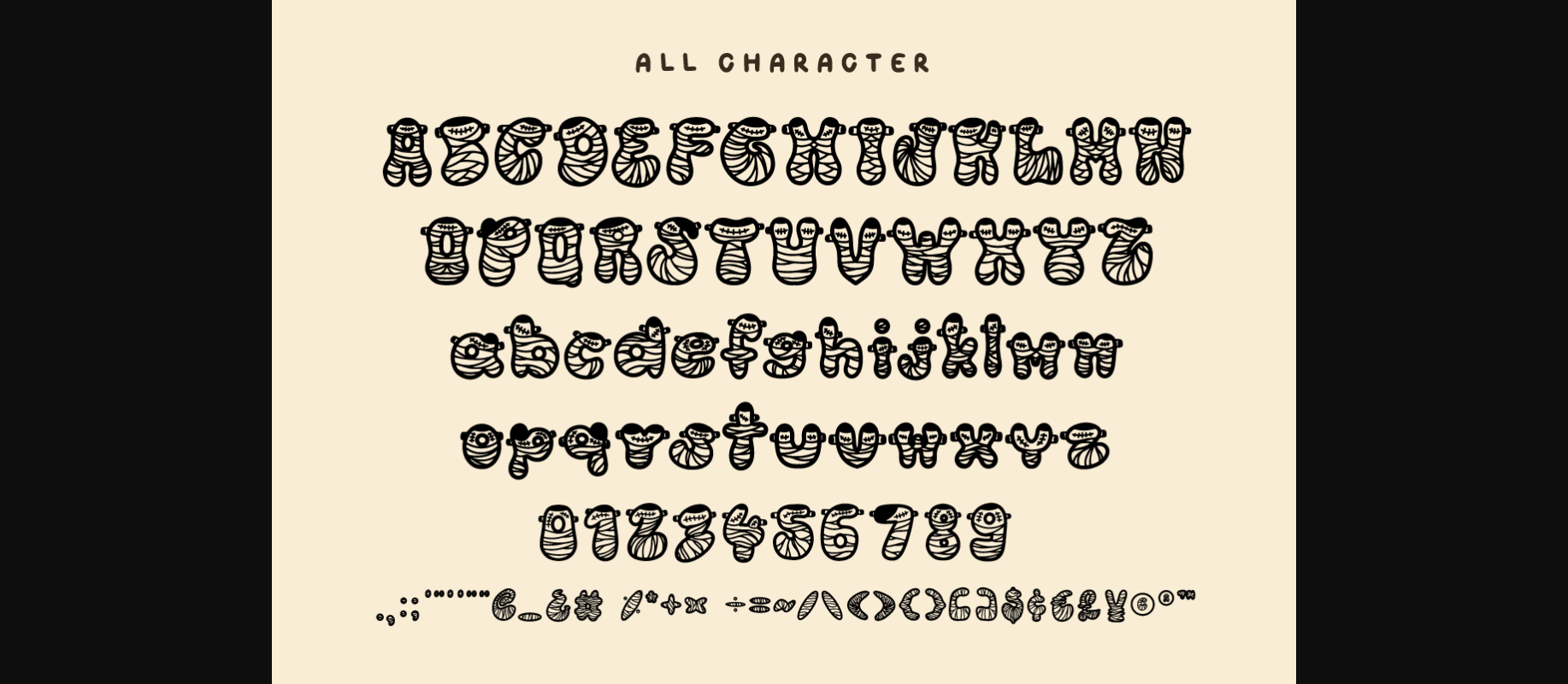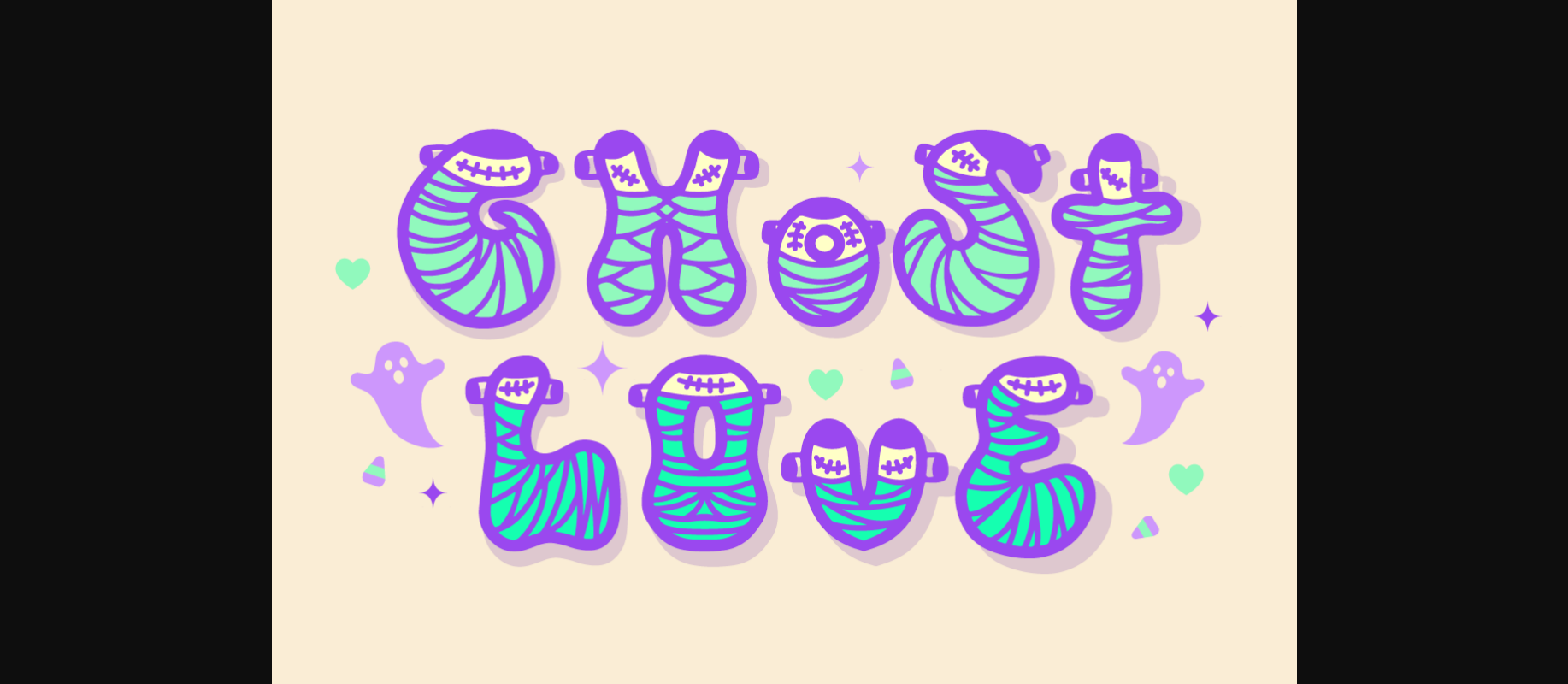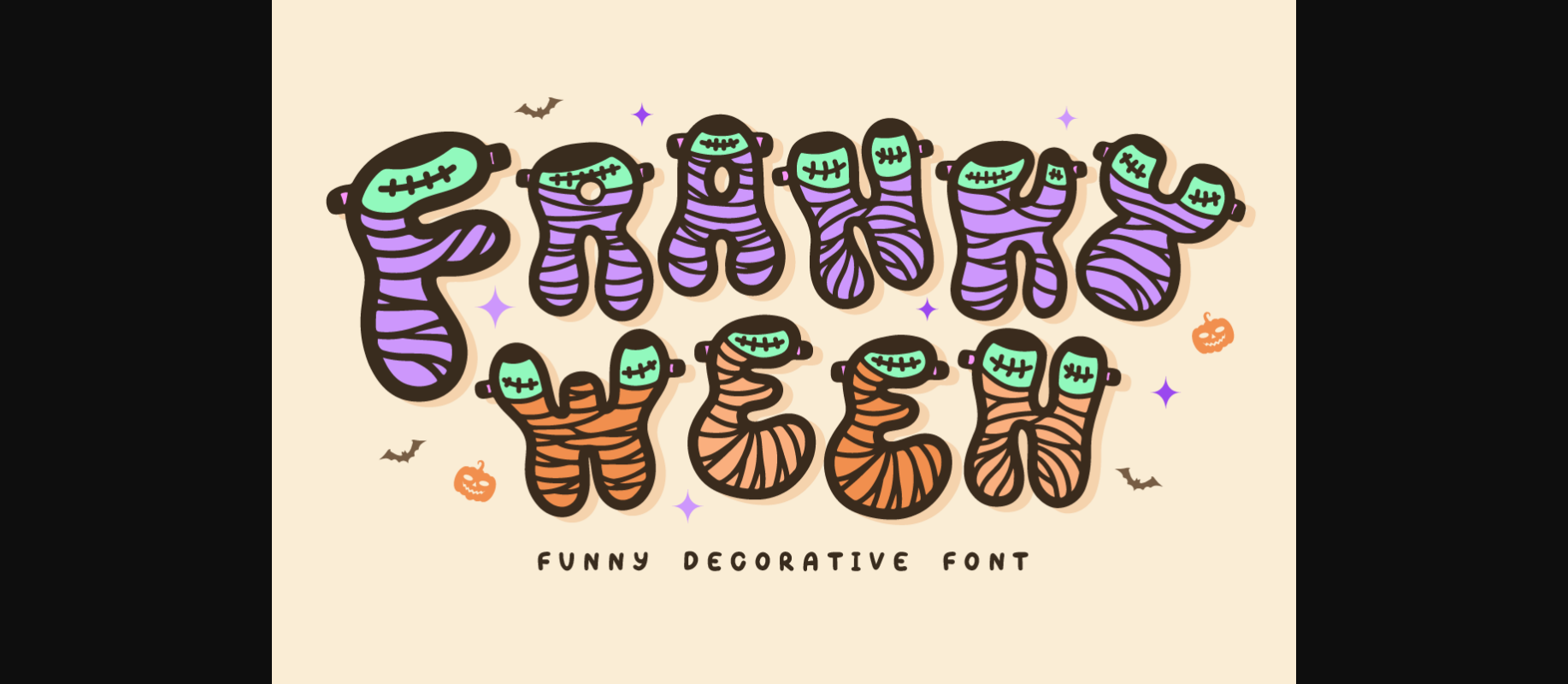
About Frankyween Font
Frankyween Funny Decorative Font is a spooktacular and playful typeface that captures the essence of Halloween with its whimsical and humorous design. Inspired by the festive spirit of the holiday, this font brings a delightful and mischievous touch to any Halloween-themed design project.